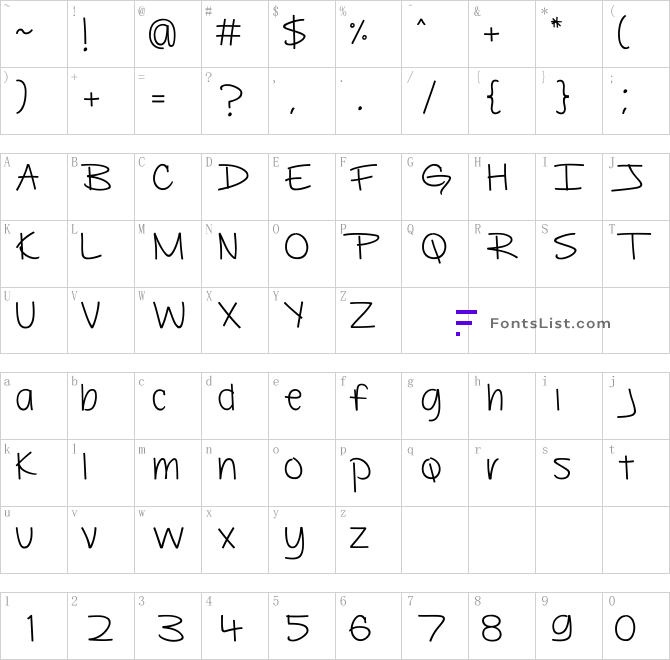
- Font Name:Beautiful Flaws
Beautiful-Flaws-copy-2-.ttf is a very beautiful artistic font, Beautiful-Flaws-copy-2-.ttf is widely used in the design and printing of various books and pictures,Beautiful-Flaws-copy-2-.ttf has a strong visual impact,Beautiful-Flaws-copy-2-.ttf is a commonly used font in newspapers, magazines and books, and is used in posters, e-commerce Poster design, store design, logo design, font design and other fields.Beautiful-Flaws-copy-2-.